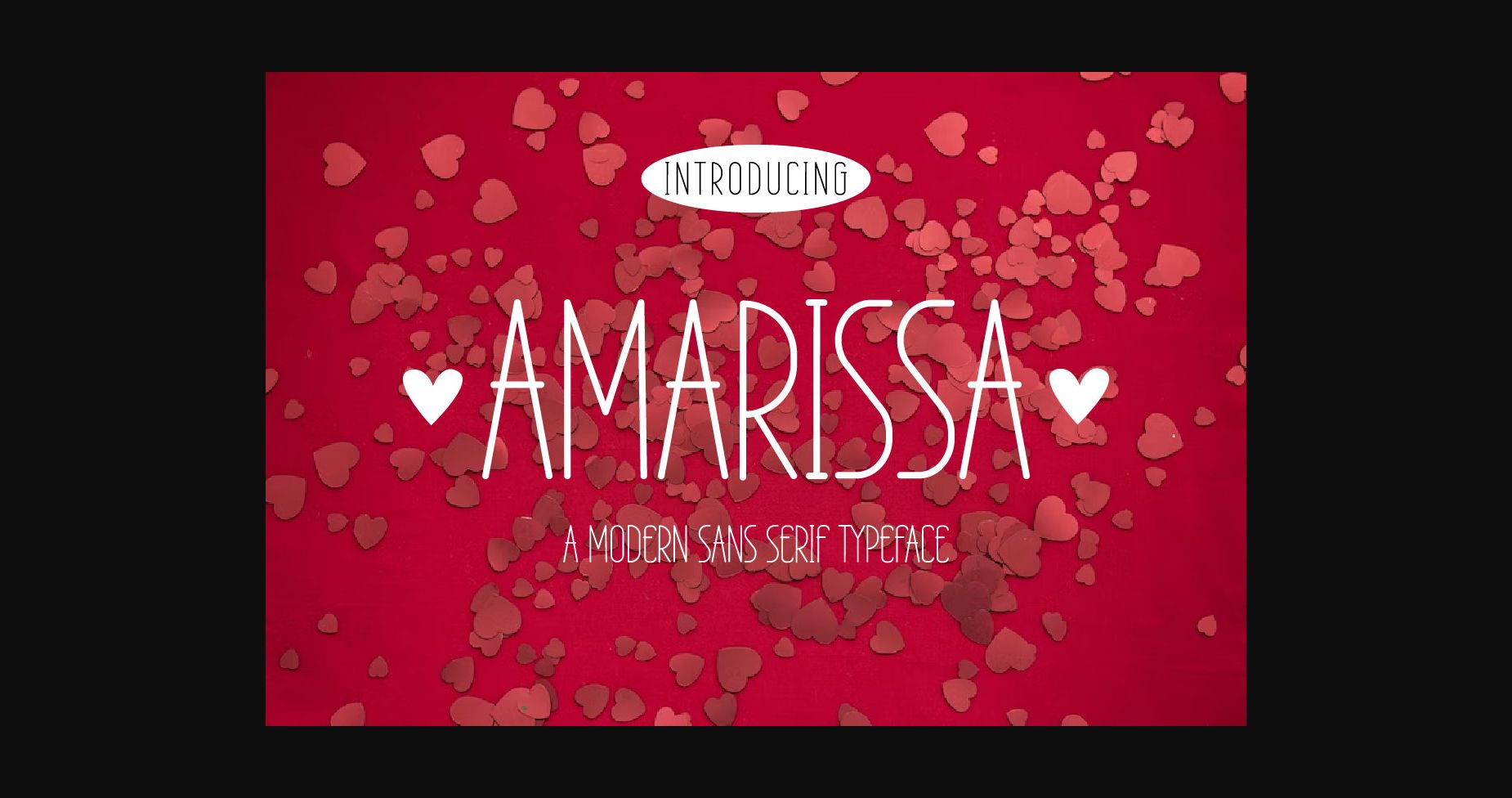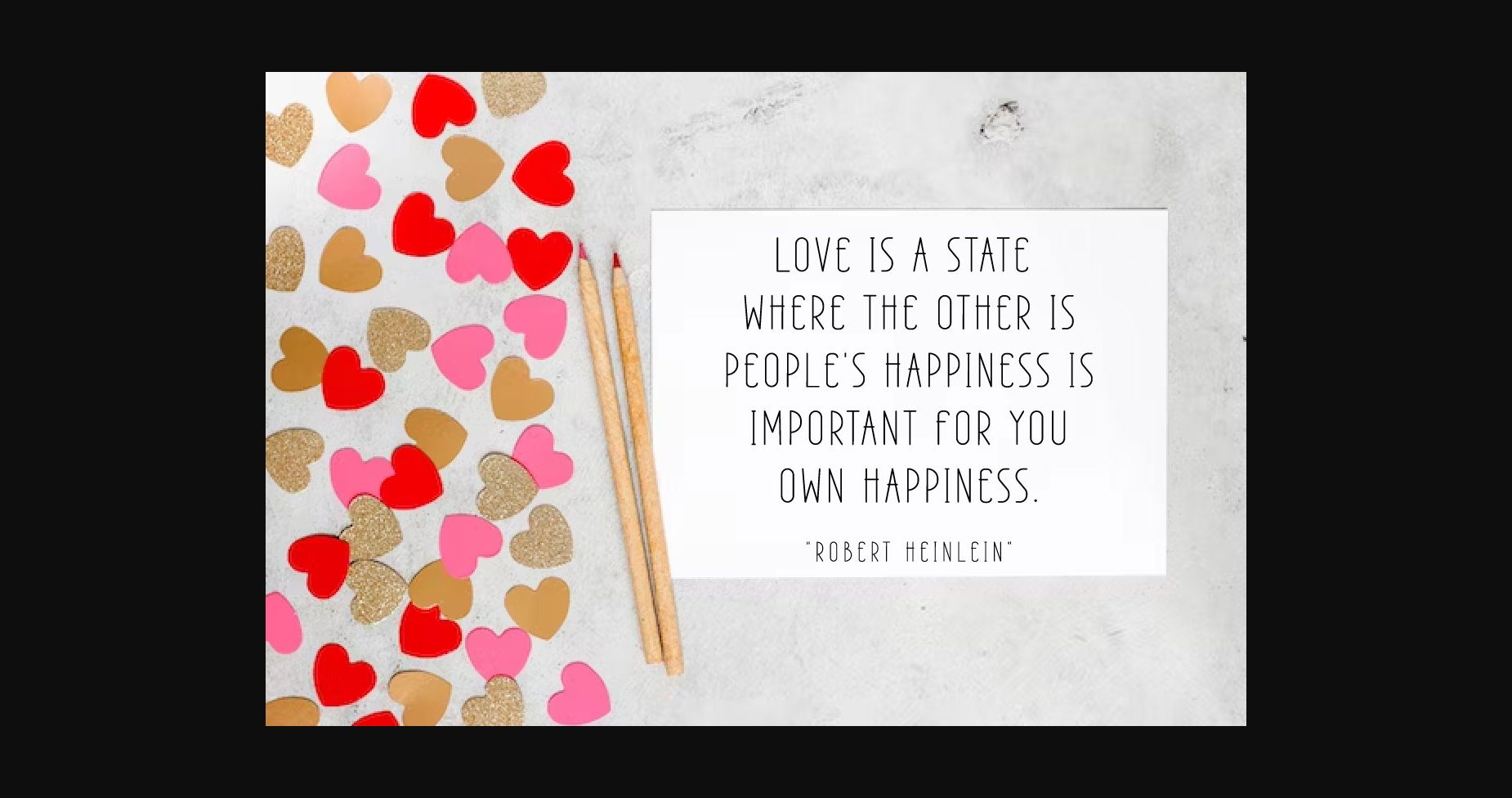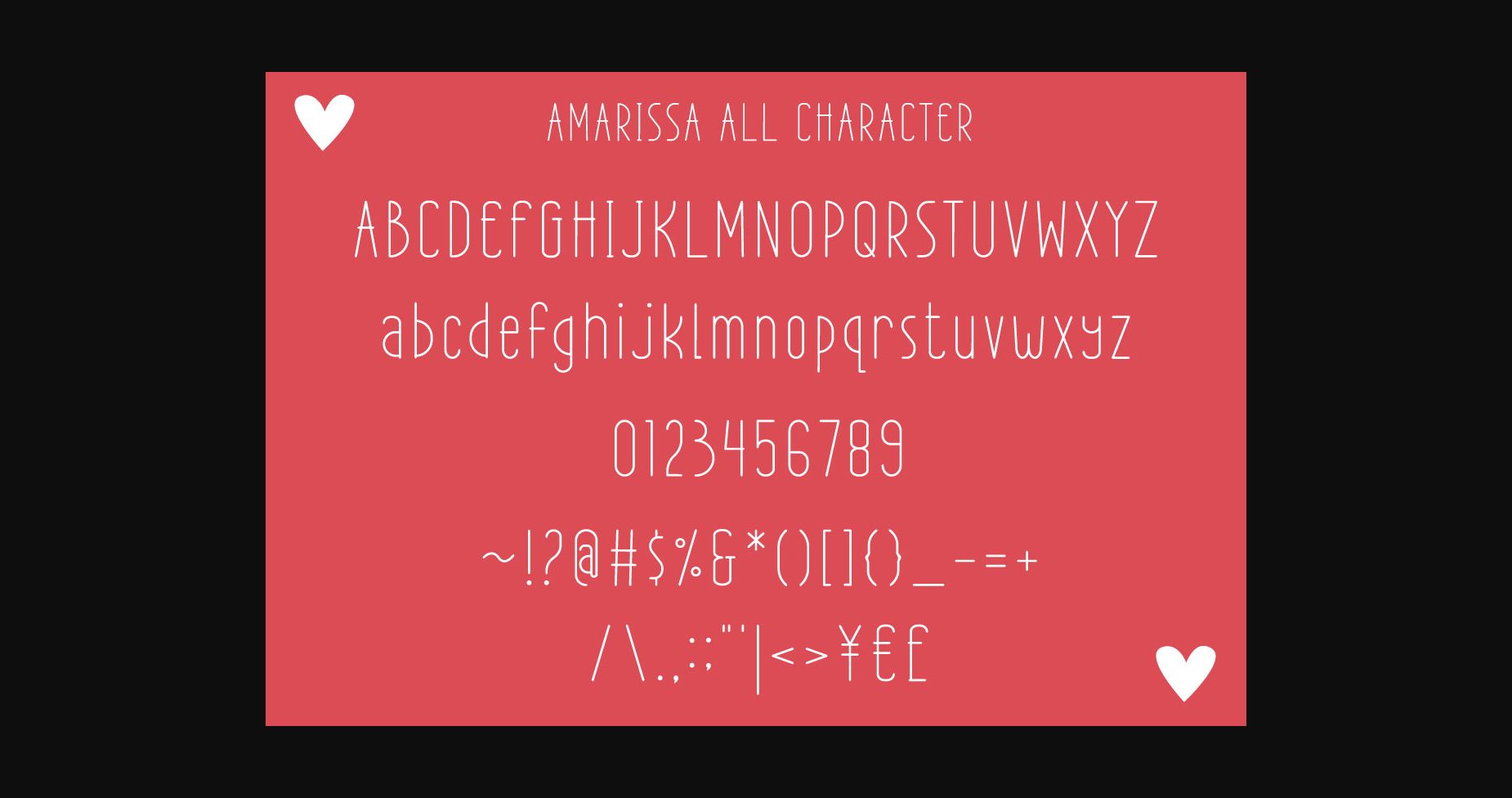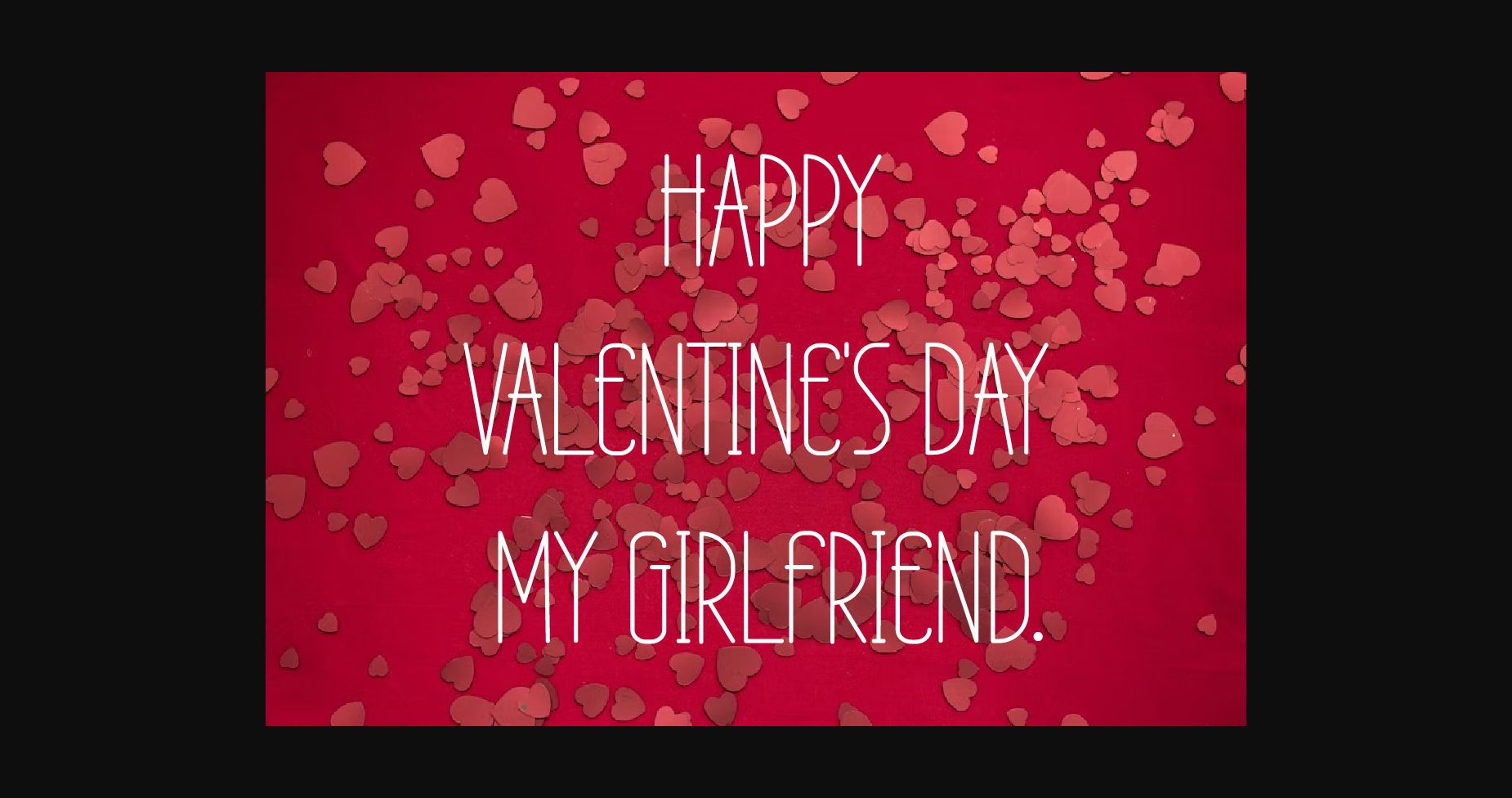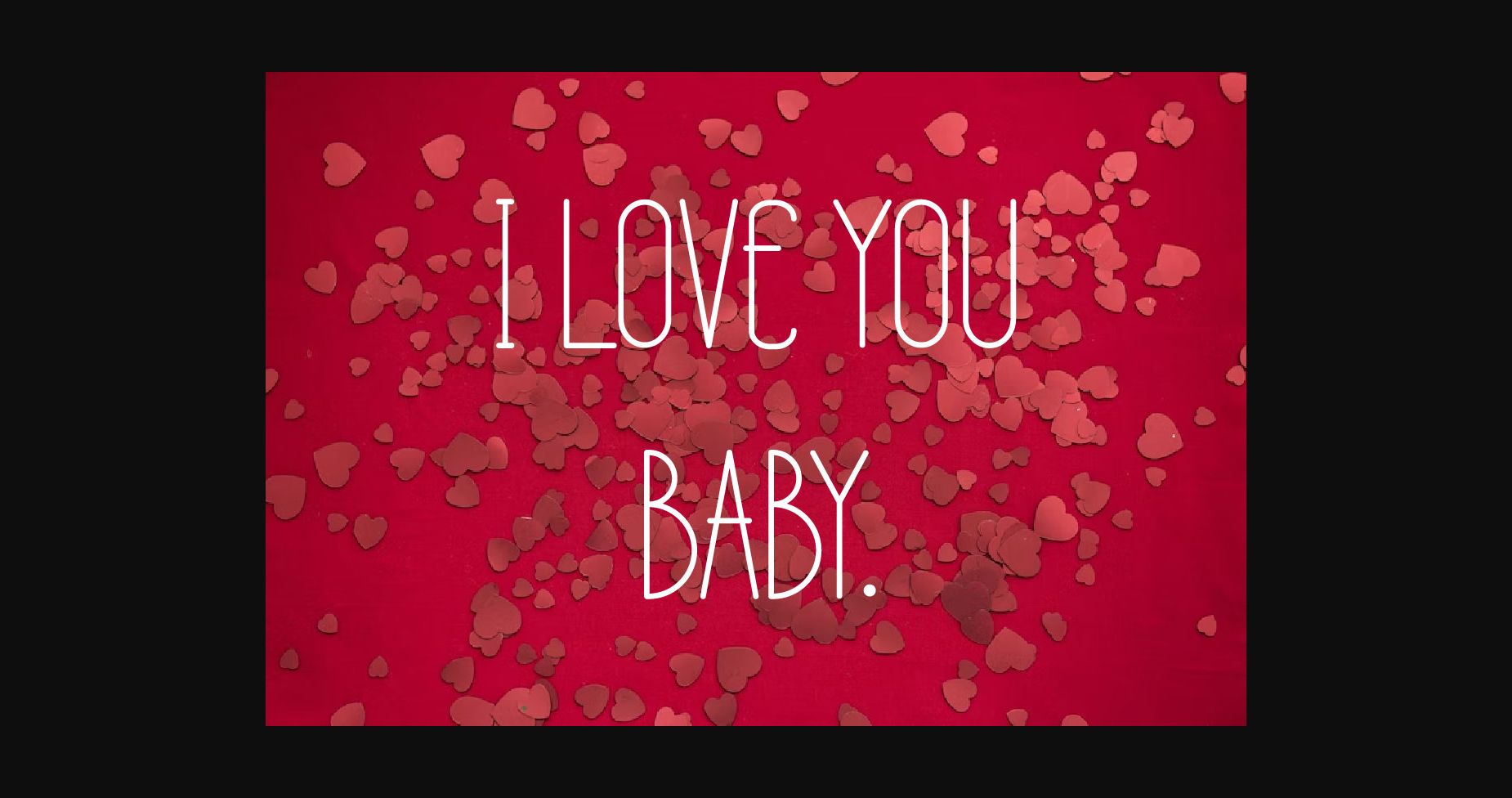
About Amarissa Font
Amarissa is a friendly and cute sans serif font. Highly versatile, this font is suitable for a wide spectrum of applications and it is modern and nostalgic and perfect for Valentine’s Day, Christmas products, social media, weddings, and more. Perfect for those who need a touch of elegance, style and modernity to your designs.